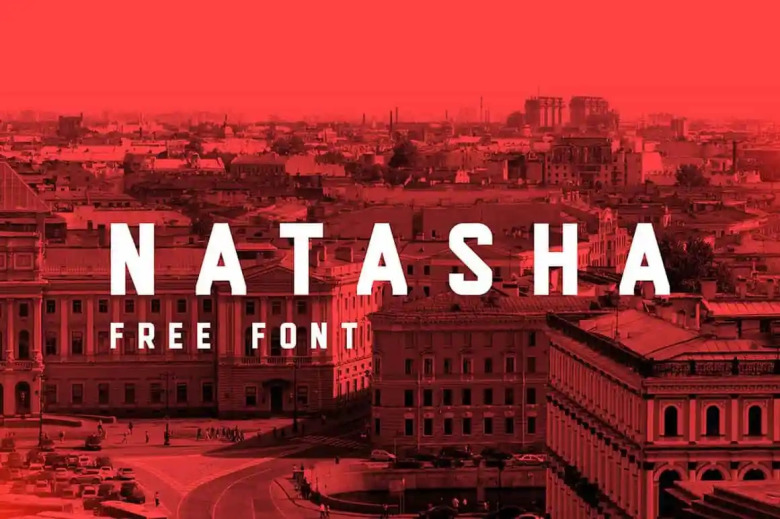
Natasha Font
Natasha is a high quality Sans Serif font that is designed by Kash Singh and is available for free download and personal use. The free version provides all uppercase and lowercase letters and a few special characters too.
Natasha Sans Serif Font